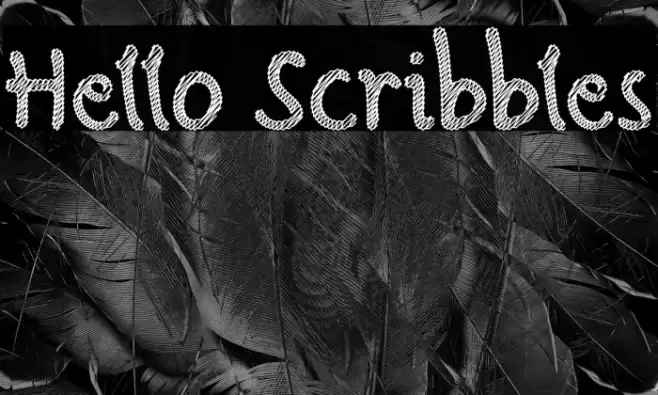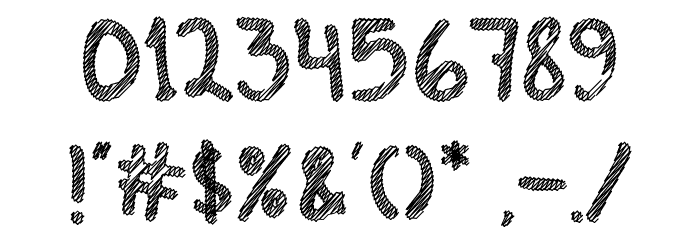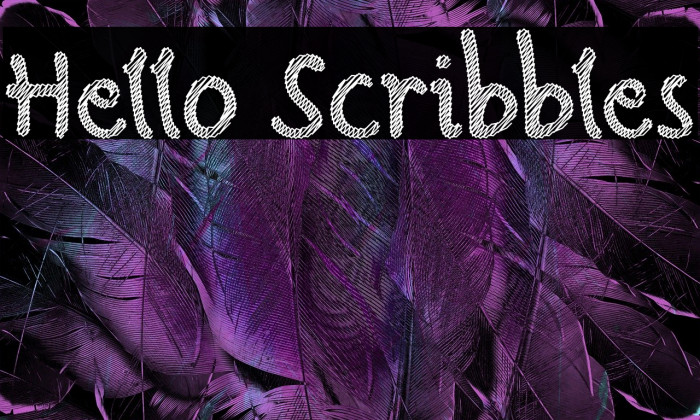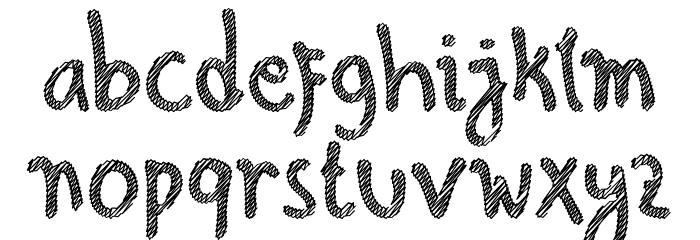
Hello Scribbles Font
Hello Scribbles Description
This font features a playful and informal style, reminiscent of hand-drawn scribbles. The letters have a textured, cross-hatched appearance, giving them a dynamic and lively feel. Each character is unique, with varying stroke widths that add to the casual and whimsical nature of the font. The uppercase and lowercase letters maintain a consistent style, while the numerals and special characters blend seamlessly with the overall design. This font is perfect for projects that require a personal touch or a sense of fun and creativity.
A playful, hand-drawn font with a textured, scribbled appearance from Decorative fonts.
- Proposed Projects: Ideal for children's books, creative posters, casual invitations, and playful branding.